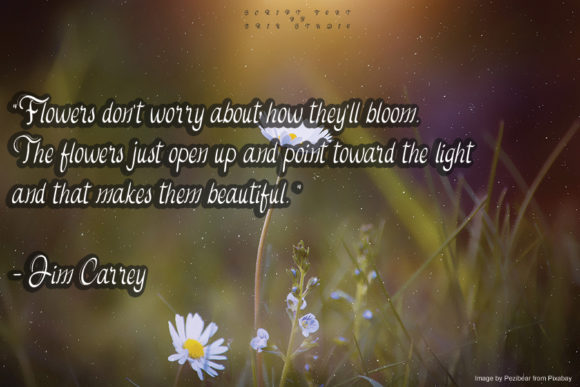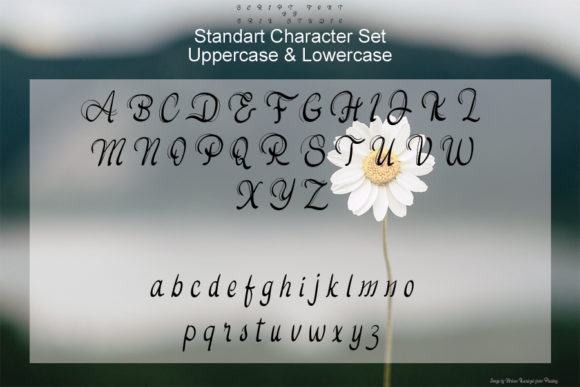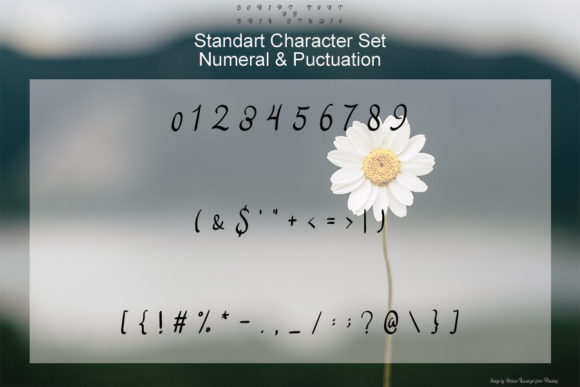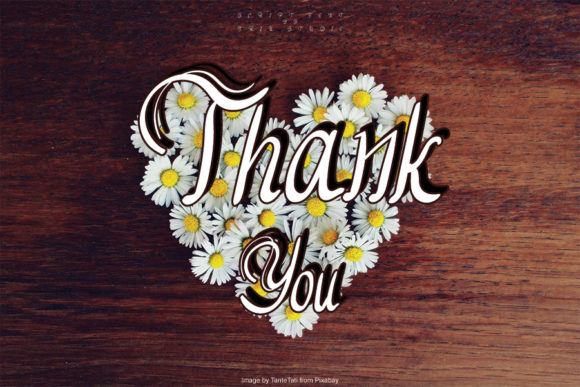
Introduction to Daisy Flowers Font
Have you ever been browsing through a vintage flower shop, and suddenly, you’re surrounded by the sweet fragrance of fresh daisies? It’s moments like these that spark creativity and inspire us to bring a touch of romance into our designs. For those who share this sentiment, we’re excited to introduce you to the enchanting Daisy Flowers Font, a beautiful calligraphy typeface that embodies the essence of joy and whimsy.
As a valuable design resource, the Daisy Flowers Font offers a high-quality solution for designers looking to add a personalized touch to their creative projects. With its dainty and playful characters, this font is perfect for writing wedding invitations, cards, or any other design that requires a romantic and elegant feel. Whether you’re working on a free download or a commercial project, this font is sure to make your designs stand out with its transparent background and delicate aesthetic.
- High-quality design resource ideal for creative projects, including wedding invitations, greeting cards, and more.
- Comes in a single size, making it easy to use in a variety of design contexts.
- Designed with a delicate and whimsical style, perfect for adding a touch of elegance to any creative project.
Honest Review: Daisy Flowers Font
I recently had the chance to work with the Daisy Flowers Font for a creative project, and I must say it was a delightful experience. This font is a great design resource for anyone looking to add a touch of whimsy to their designs.
- Limited character set, which may not be suitable for longer texts ⚠️
- No bold or italic versions, which can make it harder to create emphasis ⚠️
Overall, I’m impressed with the Daisy Flowers Font. While it may not be perfect, it’s a great addition to any designer’s toolkit, and the free download makes it an excellent choice for small creative projects. With a little creativity, the limitations of this font can be easily overcome.
The Daisy Flowers Font is perfect for:
Wedding invitations and decorations
Floral-themed designs and illustrations
Children’s book covers and illustrations